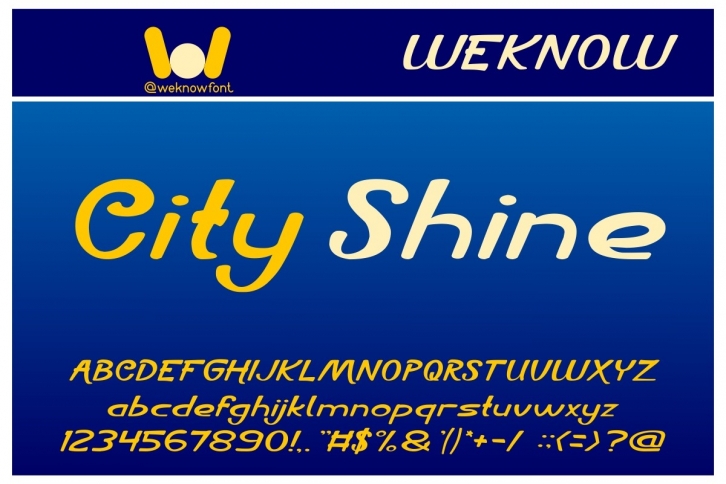
City Shine is a script various themes font, suit for logo, logotype, headline font, in corporate identity, brand identity, apparel industry, poster, music, movie, game, magazine, book, comic, cartoon, YouTube, Instagram, website, or any of your creative design project